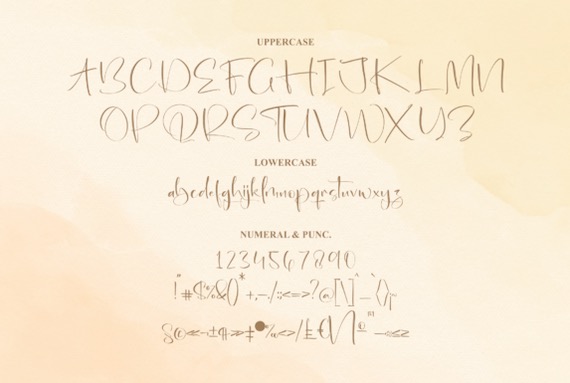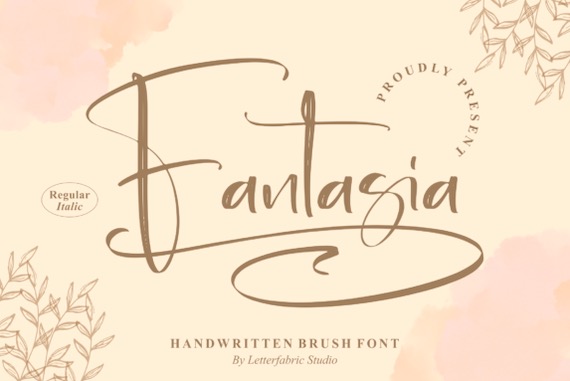
Fantasia Font
Fantasia is a classy and versatile handwritten font with flowing characters. It was created and shared by Letterfabric. This script font has beautiful and well-balanced characters and as a result, it matches a wide pool of designs. Add it to your most creative ideas and notice how it makes them come alive!
Fantasia Handwritten Font